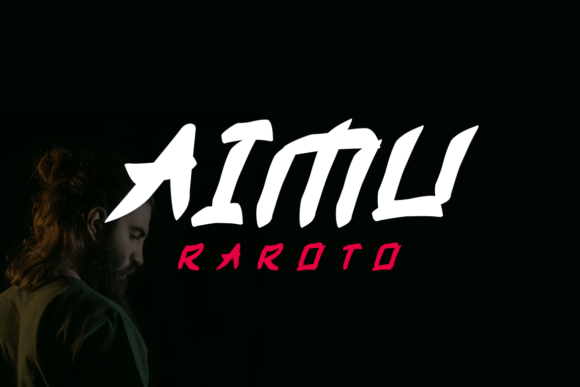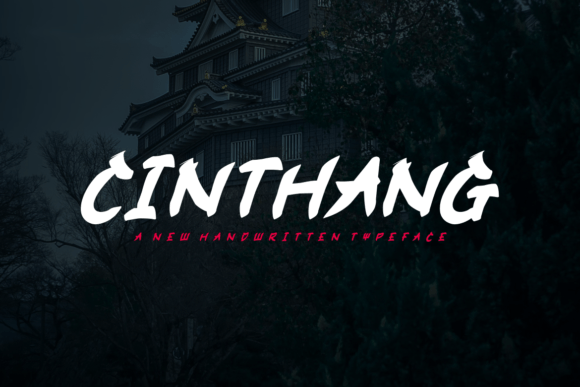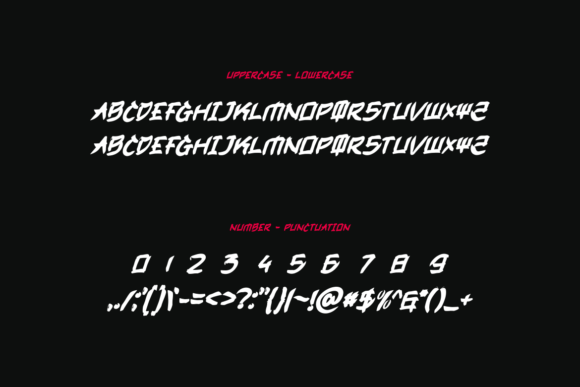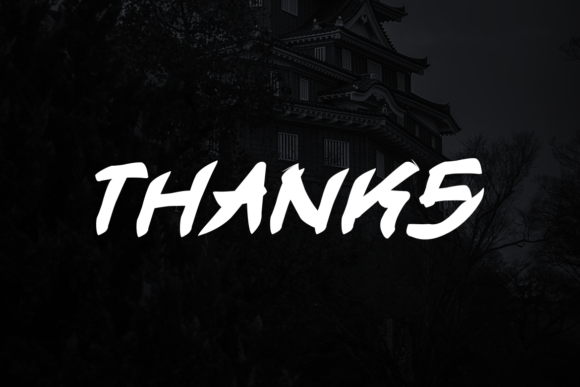
Cinthang Font: Elevate Your Designs with Elegant Handwritten Style
In the world of typography, fonts play a crucial role in conveying the tone and personality of a design. For designers and crafters looking to add a touch of sophistication and artistry to their work, Cinthang Font is an exceptional choice. This unique handwritten font combines the fluidity of a stylish script with the elegance of Chinese calligraphy, making it perfect for a wide range of creative projects.
The Unique Features of Cinthang Font
Cinthang Font stands out from other fonts due to its distinctive blend of handwritten and calligraphic elements. Its graceful curves and elegant strokes are meticulously crafted to give your designs a special, artistic touch. Whether you’re working on a logo, a greeting card, or a digital illustration, Cinthang Font can elevate your project with its refined and sophisticated aesthetic.
Combining Style with Versatility
One of the key advantages of Cinthang Font is its versatility. This font is not just limited to formal or traditional designs; it can also be used in modern and trendy projects. The flowing script and Chinese calligraphy influences allow Cinthang to adapt seamlessly to various design contexts, making it a valuable addition to any designer’s toolkit.
Cinthang Font’s unique characteristics make it suitable for a variety of design applications, including:
• Branding and Logo Design: Use Cinthang Font to create a memorable and elegant logo that sets your brand apart.
• Stationery and Invitations: Add a touch of sophistication to your greeting cards, invitations, and other stationery with Cinthang’s beautiful script.
• Digital Art and Illustrations: Incorporate Cinthang Font into your digital artwork to give it a distinctive and artistic flair.
• Packaging Design: Stand out on store shelves with packaging that features the elegant and stylish Cinthang Font.
Tips for Using Cinthang Font Effectively
To make the most of Cinthang Font, consider the following tips:
• Pair with Complementary Fonts: Combine Cinthang Font with simpler fonts to create visual contrast and hierarchy in your designs.
• Experiment with Colors: Take advantage of Cinthang’s elegant strokes by using a range of colors that complement your design’s overall aesthetic.
• Pay Attention to Spacing: Ensure that your text is easy to read by adjusting the spacing between letters and lines according to your design’s needs.
Font Name Cinthang Font
Author artchiles design
Cinthang Font offers designers and crafters a unique opportunity to infuse their projects with elegance, style, and artistic flair. Its combination of handwritten and calligraphic elements makes it a versatile and sophisticated choice for a wide range of design applications. By incorporating Cinthang Font into your designs, you can create memorable and impactful work that stands out from the crowd.